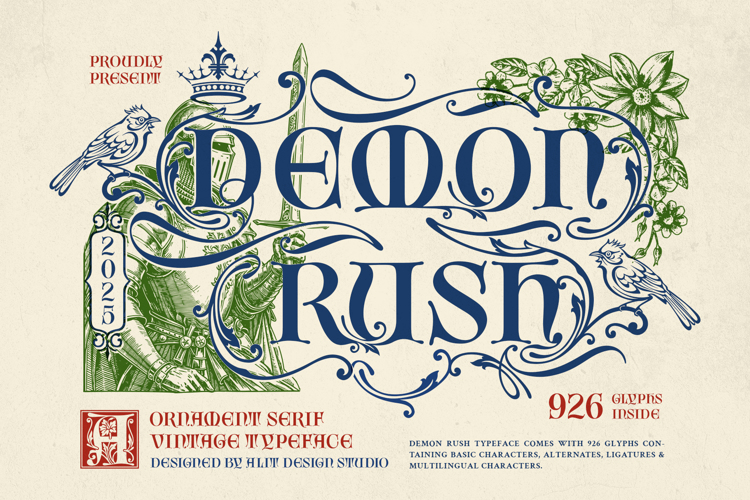
Demon Rush Font
Demon Rush: An Epic Vintage Serif with Abundant Ornaments
Step into a world of myth, legend, and timeless craftsmanship with Demon Rush, a profoundly versatile vintage serif typeface. This isn't just a collection of letters; it's a complete design toolkit for storytellers, meticulously crafted to infuse your projects with the weight of history and the beauty of intricate ornamentation.